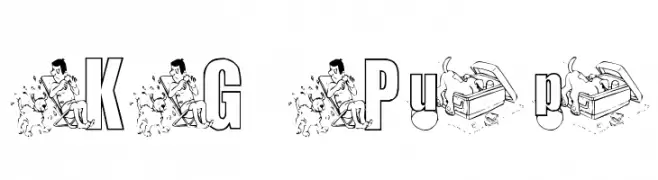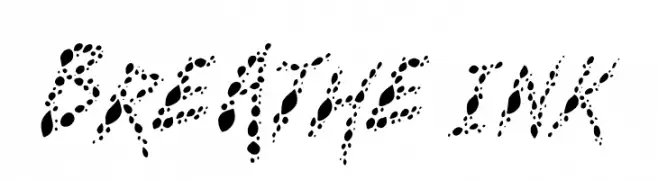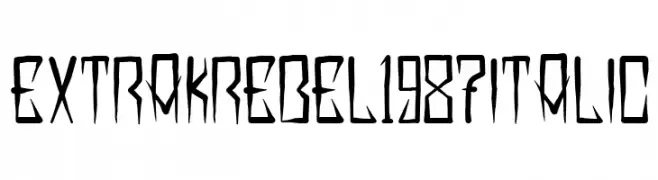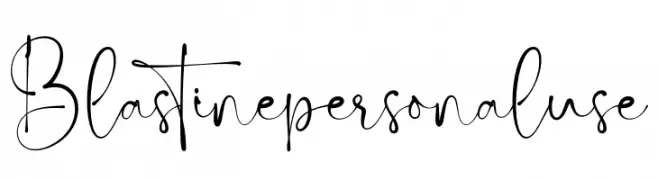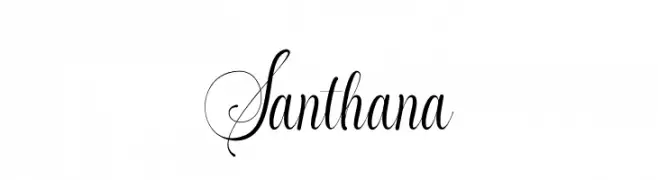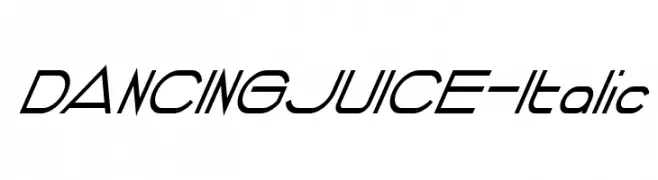
A playful font with each letter paired with a dog illustration, perfect for fun and creative projects.
A playful, ink-splatter-inspired font with a dynamic, dotted design.
A bold, decorative font with a cracked glass texture, perfect for impactful designs.
A modern, handwritten script font with elegant, flowing letters.
A bold, angular font with a modern, geometric style.
A bold, edgy font with sharp, angular lines and a rebellious aesthetic.
An elegant, flowing script font with a handwritten style.
An elegant script font with intricate swirls and loops, perfect for refined designs.
A sleek, italicized font with a modern and dynamic style.